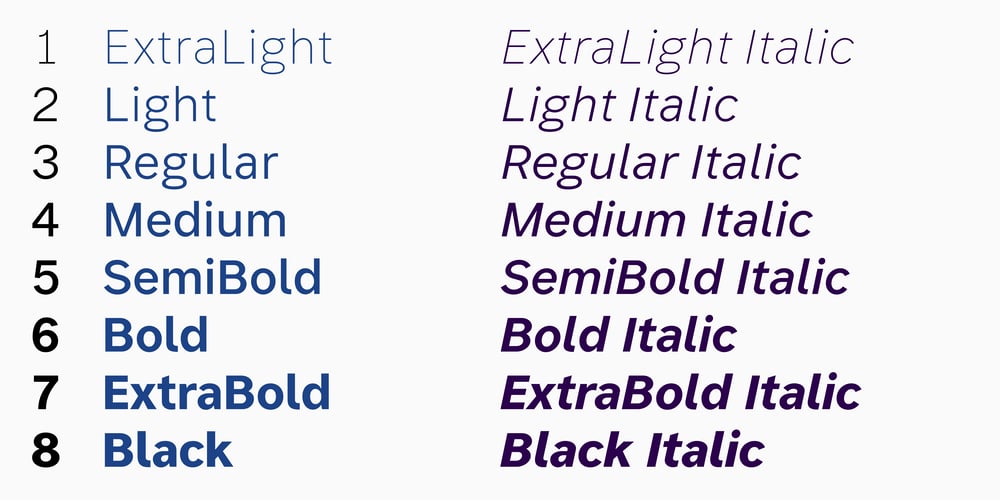
Forme Grotesque
Forme Grotesque font
Forme Grotesque Font Family was designed by Jeremy Johnson and published by Colophon Foundry. Forme Grotesque contains 16 styles and family package options. Forme Grotesque, by Jeremy Johnson, explores the richness of the 19th century British Grotesque genre. The design draws on inspiration from a number of British type foundries, including Grotesques from Stephenson Blake, Monotype and Miller & Richard. Johnson looked at the particular idiosyncrasies and imperfections of these early typefaces, attempting to put these through a contemporary lens, whilst retaining a nuanced spirit throughout an extensive type family that spans a wide range of weights, and over multi language writing systems.